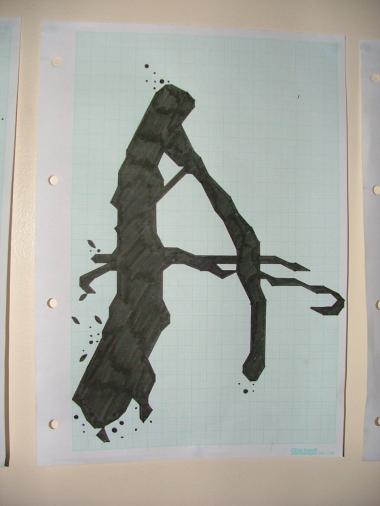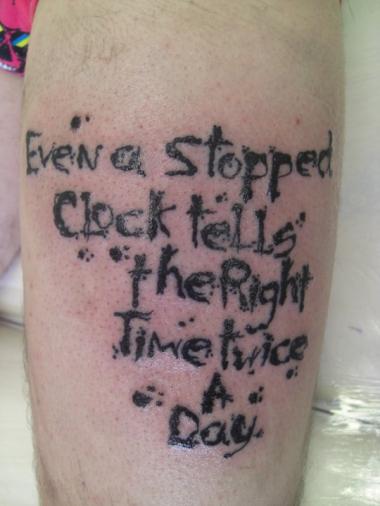
I don't know how you did it, but it looks like a masterpiece quite out of this FS world. 10/10 Can you do Rorschach cards?
oh, yes. mighty magnificent. i can see how doing this would make you a little batty. i think would work well for a couple of Poe titles :) even more impressive using a relatively manageable grid and 1x1 filter. i cloned it to take a peek and have deleted clone. kind of you to share your technique, but i would put this on lock-down :) this is so outstanding and a great technical achievement, that even after seeing how you did it, i remain in awe.
Like fk, I just had to clone this and have a peek at the workings of this really fine bit of artistry.
An absolutely amazing job loboarches ... looking forward to seeing what else you come up with. Gets my 10 :)
Amazing work.
I agree with funk_king...lock this baby down!
:O
The gob is smacked.
I've made a clone too. But don't worry, I'm not going to copy it, or use it in any way to create some derivative work. I just wanted to learn more about your technique, that's all. I also agree with funk_king and others: it is so unique and of high quality, you'd better lock it down before it's too late. There are some vigilant folks registered on FS, but never made a font themselves, waiting for some juicy stuff they can clone and list under a different name on their websites.
Absolutely amazing achievement. I didn't know there were an ink tool in FS... And I'm so sad I'm coming to late to clone and see how did it. But my fellow fonstructors are right: you unfortunately need to protect your work these days.
Wow. This is totally Gonzo. Ralph Steadman meets Fontstruct. Bravo.
Sorprendente!
Are you shure you are using the same FontStruct as I do? I'm going to refresh my cache just in case...
Personally love it!
Truly wonderful especially when you get up close and see the geometry of the ink. I can't believe you're in your first year.
Laurie, you are a legend. Good work that man!!
interesting description of your process. it would be nice to see pictures of the initial glyphs you created before doing them in FS. the outcome is great, but the back story is intriguing as well :)
The tracing-onto-graph-paper and digitizing-via-fontstruct steps must be killers – though they definitely speak to the intricate handcraft you are putting into all this! I have a suggestion for how you can dramatically speed things up (and avoid some more tremendous, soul-sucking tedium and save yourself some vital energy) while adding the lowercase.
kix first published this technique here, though to my knowledge I was the first to use it for my homage to Lichtenstein contribution to the first multi-user fontstruction – Bubble Lab. The basic idea: open up the fontstructor in a semi-transparent window with an image you desire to “trace” appearing directly beneath it. Really, it’s just a cunning extrapolation of a common technique used in any number of graphics programs to trace, embellish, or otherwise digitize images from an existing source – usually a scan or digital photograph. There are a number of ways to make your browser window transparent, depending on your OS. Contact me directly if you have any trouble figuring this part out. You will have to come up with a method for scaling your images to the grid, but I imagine you have already gotten used to this with your hand tracing approach.
If you look closely at my “finger pointing” glyph in Bubble Lab, you will see that I extended this technique to its logical extreme of detail. Rather than stick to the “smooth-edged” approach you and kix used – as you said limitating each line to only 4 given angles – I treated the fontstuct grid as a sort of pixel matrix where each partial brick (and all their brickstacked permutations) are considered as grayscale values. Since almost all bricks are available in four rotations, selecting the right bricks in a given position always allows for a “continuous” line – lines which will appear from a certain distance to hold to any given angle. Back in the category of tremendous labor and tedium, one can come up with limitless, even fractal-like textures which define the line quality of a gien work. Intaglio – another old-timey fontstructor – called my first use of the technique “crayoning outside the line”, for instance. :D
Your method has some very intentional and well-considered constraints, so please don’t get me wrong. They are especially apropos to the subject matter from my highly personal perspective. I too was enamored with Steadman’s lettering on the Fear and Loathing in Las Vegas book jacket. So much so that I actually scavenged a cardboard box once containing movie poster for the same so that I could roughly tear out the title (which for some reason was on this cardboard box :) and pin it up as the center piece for the large and eclectic collage which adorned one of my teenage room’s walls. Whenever I see these letters, I can’t help but imagine them in this context – as thick black ink pooling erratically on the surface of rotting corrugated cardboard with the underlying, prison-bar like rib pattern still showing through as they characterize the surface flow. The four–angle grid yields a very similar quality.
How all this triggers such a poignant and timely memory for me! Thank you for sharing these elegantly trashy letters splashed as if on scraps of cardboard, a precise metaphor as any for the decline of the American Empire! 10/10 and I hope all this saves you some time!
Comment by William Leverette (will.i.ૐ) 11th november 2009
cheers will its always nice to here feadback espcially that Thorough! i had a look at that tracing technique that you used and it's pure genious! i'll definalty be looking into that for my further design's. i'm very pleased you like the font and that you seem to find a nostalgic quality in it. hopfully that means i've done it right! thanks again for taking the time out and parting wisdom lol.
laurie
Comment by loboarches 11th november 2009
Congratulations on the TP - well earned.
@will.i.ૐ: Thanks for the info about transparent windows - have d/l and installed Transparent Windows already ... now to play with it:)
Comment by p2pnut 11th november 2009
laurie... you make me sick!!! this is so good... after seeing yours in the library in the early stages i decided to completely re think my entire project, its still not finished, but it's way better than it was... amazing stuff. i for one, feel seriously threatened ;) love it - Jo xx
Comment by pinkpanther 11th november 2009
wahouuua !! incredible thing that !
a big "BRAVO" for your work !
You student give some real inspiration for font creation on fs !
Comment by zen_killa 13th november 2009
Congratulations! FontStruct Staff have deemed your FontStruction worthy of special mention. “Bat Country” is now a current Featured FontStruction.
Comment by gferreira_admin 25th november 2009
Congratulations! FontStruct Staff have deemed your FontStruction worthy of special mention. “Bat Country” is now a current Featured FontStruction.
Comment by gferreira_admin 25th november 2009
Are you do this with fontstruct ?
Comment by darkseeid 30th november 2009
brilliant.
Any plans to do the numbers or more punctuation?
Please say "yes"..
Comment by linehand 1st december 2009
Thats incredible!!!!!!
:O
It's a masterpiece. How did you do it? 10/10
You should make a living out of doing that!
Comment by DiabloDemon 1st december 2009
I want to bumb this font, have you ever watchd Helvetica!?
Comment by GypC14 9th december 2009
loboarches, I was about to put my ideas on hold, perceiving the allotment of shapes as limiting, but what you have shown me is no less than inspiring, and I love tedium so graph paper will be my way too. But I do like the Idea of transparency givin by will.i.ૐ, I just have to figure out how to do that.
Comment by twelvish 10th december 2009
Pros : Artsy
Cons : Such fine structure of lines disturb the clarity of characters (i, w, m etc). Also there are no numbers or punctuation included in your font so it fills in with default font (which is then cut in half) This is okay for artwork but isn't good for applied use. 5/10
Comment by Denzel Johnson (mobilesuit) 10th december 2009
Bat Country has slipped from No.1 to No7 in the last two days after it accrued three troll votes (see the picture). These votes are not about evaluation, we all know that. These votes are guided by sinister intentions to manipulate the TP list. I don't want to
consider the inferential perpetrator(s), it seems unimportant at this point. Needless to say, I'm always angry, regardless of who the victim is, when I see such deliberate attempt to make our positive ratings a nullity.
Loboarches came to FS recently (along with many talented artists from University of the West of England, Bristol). They infused fresh new ideas, and shared many outstanding works here on FS, raising the standards to new heights, so I think, we ought to
appreciate that. Bat Country was instantly recognised as an exceptional work by many, and within a few weeks it has climbed up on the TP chart to be the No.1. I appeal to you, all who have opinion, but did not vote for this particular fontstruction, to help to restore its position. We could ask FS staff to delete those troll votes, of course. Easy. But I think, it is a good opportunity for members to show their qualities.
I have no more stars left for this work. It is upon you to show your esteem, respect and admiration in numbers at the voting boot.
Comment by Frodo7 11th december 2009
I fully endorse Frodo7's appeal. Sadly, I only had the one 10 to offer ... wish I could give more. So, c'mon anyone who hasn't voted and slap you 10 on here.
Comment by p2pnut 11th december 2009
Wonderful! Considering the tools that you have to work with, you were able to create something so organic on a strict grid system. Kudos!
Comment by hellotheresa 11th december 2009
My word... I though I put too much effort into my work, but this font shows me just how wrong I am!
I can hardly believe... In Fontstruct... That much detail?!
This is the best font I have seen at FontStruct thus far, and I sincerely doubt I will be able to find a better one (unless it comes from you, that is)!
Comment by WolfieMario 12th december 2009
Outstanding! The product of a creative and troubled mind. I like that. Keep 'em coming...
Comment by moonshot 13th december 2009
thanks for all your comments everyone i honestly didnt think my font would do this well! if anyone has used it for any thing at all i would be delighted to see them. cheers. laurie
Comment by loboarches 14th december 2009
This is such a great font! If only it had an apostrophe I'd be using it right now :(
Comment by Deebster 21st december 2009
wow. A-M-A-Z-I-N-G, amazing... I love it.
Comment by p!nkluver 20th january 2010
Hey Laurie. I am totally digging and relating to this particular brand of insanity. I find it both maddening and inspirational at the same time. I also feel impelled to remark on the creative work of your fellow classmates and the bold experimental work that has been produced. Please keep the crazy coming. =)
Comment by geneus1 22nd january 2010
Impressive...
I would say, that this is one of the best projects on FS.
I don't know how long you've been working on this, but creating something like this from scans in serious program, not only would be faster, but would give much, much better effect.
...so it's impressive in kinda' sad way, really...
Chears.
Comment by szndm 7th march 2010
Nice imagination and creativity. Well done.
Comment by syamsunders 29th march 2010
wow, very nice =]
Comment by spacebabi 31st march 2010
very awesome!
Comment by juliannicole 10th april 2010
That could be compared to "Chiller", but its better, very inspiring stuff, keep it up!
Comment by Matt Grey (mattgrey) 9th may 2010
did you use font-struct to mske this?
Comment by pappappeppermint 9th may 2010
Very impressive! :)
Comment by gspace 13th may 2010
°∆° How?... How??? Looks now modular but whhaaaa???
Comment by m_frind1_m 14th may 2010
°∆° How?... How??? Looks now modular but whhaaaa???
Comment by m_frind1_m 14th may 2010
szndm: Although most of us might agree that using a vector-based drawing program and a scanner would be the intuitive approach for realizing a display face like this, the fact that the designer followed her own process in creating this is notable and commendable. As she stated, this seemed to be a required restriction, which to me, is what FS is all about...testing the boundaries and seeing what FS can do. I think that the faceted nature of Bat Country at large sizes is what makes it so intriguing, giving it a particular character that it might not otherwise have. Lastly, I must disagree with your inference that FS isn't a “serious” program. Sure, there are plenty of other professional tools out there, and we all have a wish-list of what FS COULD do (no offense to 2.0), but what it DOES do, it does extremely well... and it's FREE! I've been able to use FS to quickly create display fonts for professional projects… fonts that I would have never otherwise taken the time to make. I've always thought that part of what makes FS so exciting IS the limitations. I think most professional designers would tell you that some of their best work is a result of limited parameters, materials, etc. So... thanks again to Laurie for sharing with us all an avenue of exploration we may not have considered. (… steps off soapbox, loses balance, laughs nervously, wipes brow.)
Comment by fugitiveglue 14th may 2010
hahaha brilliant!
yet again i've got to thank everyone for the comments, it's benn extremly enlightening for me to progress trough my first year of my degree and have such great feedback on somthing i've done. so yet again thanks a bunch.
although sorry to dissapoint (fugitiveglue) but i'm not a girl i'm afraid lol. though i know the name laurie can throw people off.
Comment by loboarches 15th may 2010
Oh crap. Sorry for the gender-confusion! And for the record, I was fawning over your work, not you personally. :)
Comment by fugitiveglue 16th may 2010
apik
Comment by Adien Gunarta (Adien Gunarta) 28th may 2010
this is soooo awesome! I downloaded it. How did you make that? That is soooo cool!!!!!
Comment by rexy19456 19th june 2010
Mate of mine got this done, cheers samboi!
Comment by loboarches 5th august 2010
I like this!!!How u did it???Oh My God!!!
Comment by Prince Ang 24th september 2010
It is a very interesting-looking font and I'm downloading it now - I'm thinking that it will work great when I want to use interesting-looking fonts in some of my artwork!
Comment by Sister2brother 29th october 2010
I was now produced my "communicating with words" first year module on the BA(Hons) Graphic Design course at UWE Bristol, England too~but i dun noe how to make such a nice curves~
Comment by YgHui 30th october 2010
really thanks for your advise~I will try my best~
Comment by YgHui 3rd november 2010
As if it hasn't been said enough, I'm going to say it it again: this is incredible!! Awesome work!
Comment by carolineelizabeth 4th november 2010
how can you do it
you dont get all the bricks you want
Comment by malavika 12th december 2010
great job, what a fabulous font!!!
Comment by avidartist 17th january 2011
As I look to the right, I see a shirt with this A on it. Congratz!
Comment by Drgrit 21st january 2011
cheers dude. i was pretty surprised my self i can tell you!
Comment by loboarches 21st january 2011
Could we see some screenshots of the font in action?
Comment by Agent Demonic Ladybug 21st february 2011
i'm feeling so.. childish! the perfection made fontstruction! 174599/10
Comment by sive 1st july 2011
@meek: The comment above appears to be just an excuse to spam the link (see also the comment on 'TFa SquareSans' also today) The author 'loopslike' only opened the account today and has already placed two spam links to unconnected businesses.
Comment by p2pnut 31st december 2011
avenged sevenfold? whatever. only thing that i can say is omgwtf awseome! 10/10
Comment by Jabuto 17th july 2013
I'm new to this site. I love your font. I'd like to suggest it for a design I'm doing for a local band. Are there terms of use that I can't find here? This would be an independent release sold, mainly, at shows.
Comment by fordzign 25th february 2014
Hey 'fordzign'
Use it to your hearts content. All I ask is that you'd send me what you've done with it afterwards as i'd live to see.
perfect!
How is this even possible. I'm literally just dumbfounded. 19/10.
One Word Describe This Font.
Masterpiece..